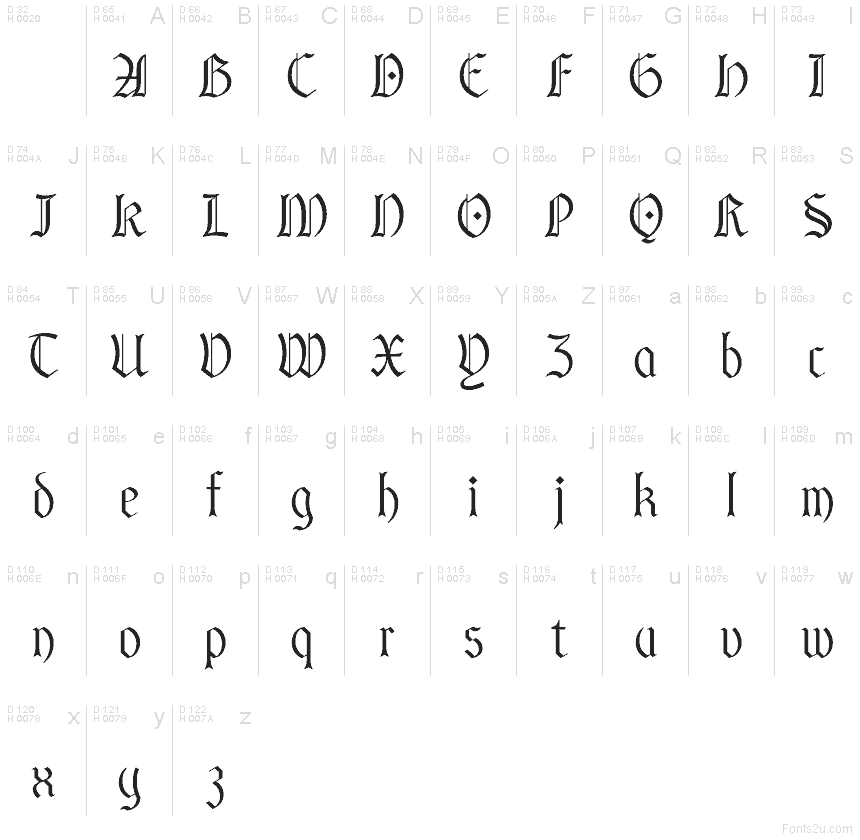
CS Aristide Regular Demo
CS Aristide font by Craft Supply Co. is a gothic typeface with medieval influences and distinct condensed characters. The font presents ideas clearly using its ornate details all while keeping some areas clean and minimal. Besides the lovely letter design, a spirit of elegance reveals itself to people who look.
This free gothic font is suitable for magazine covers, book titles, t-shirt designs, wedding invitations, greeting cards, business cards, branding purposes, poster design; graphic presentations; app projects; packaging labels and more similar uses.